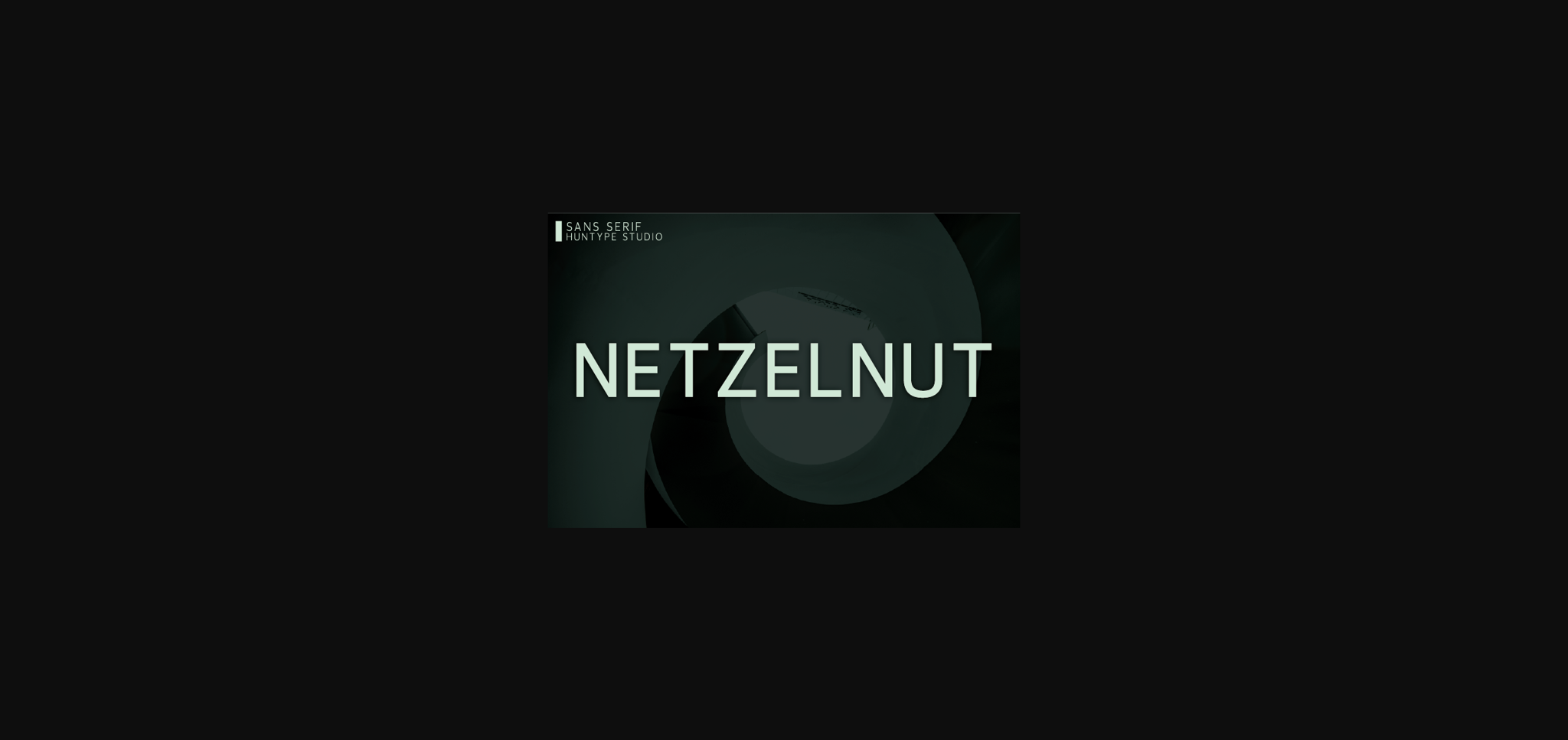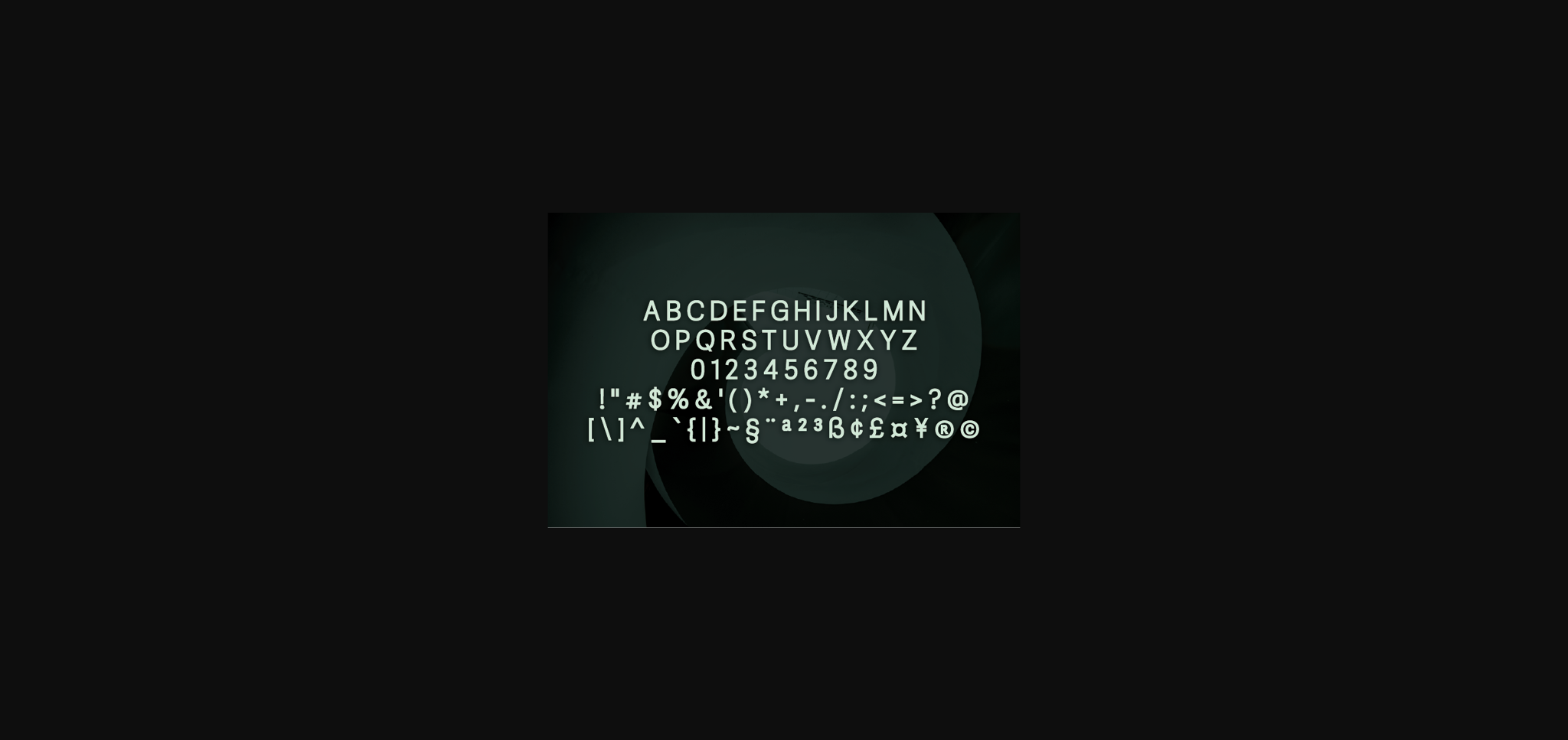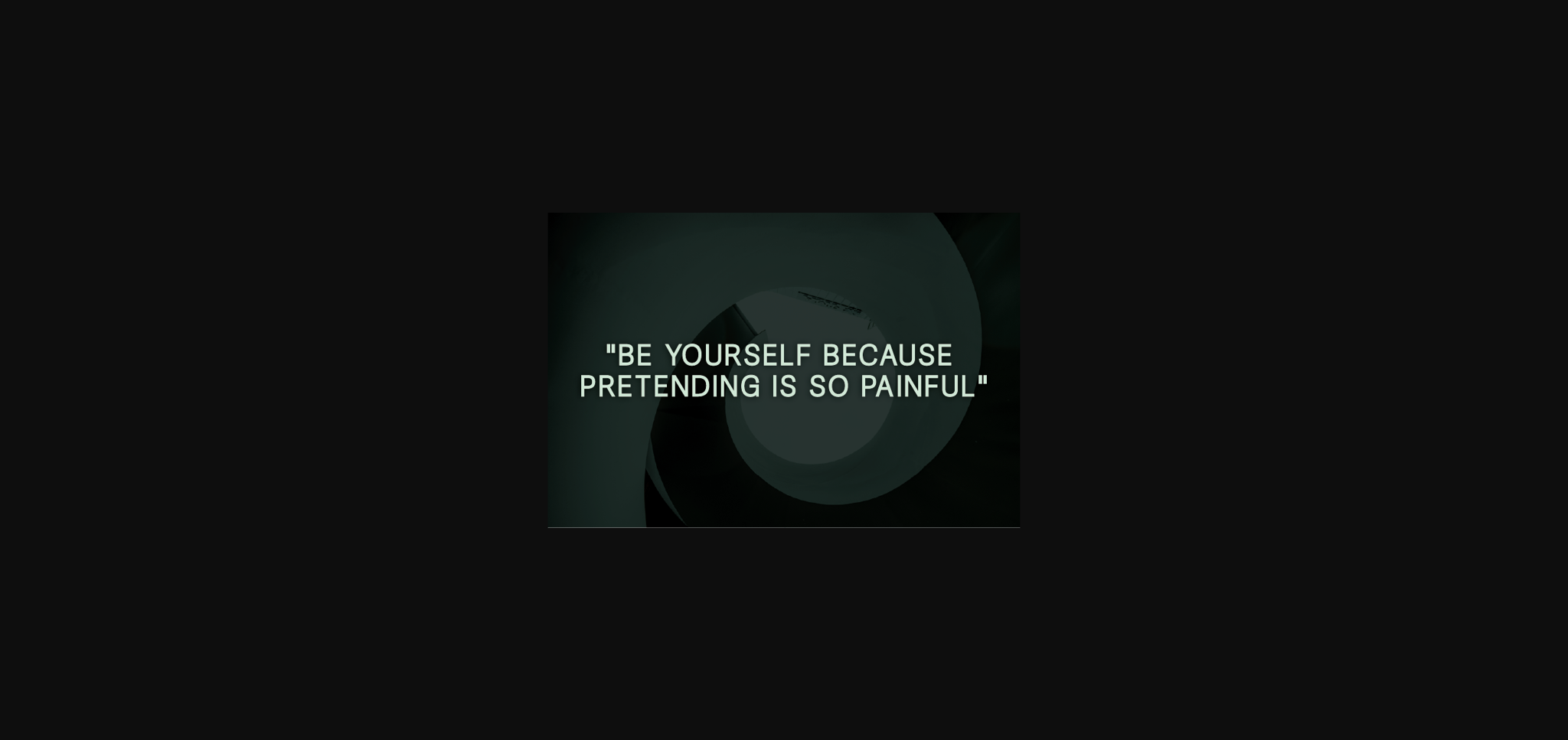
Netzelnut Font
About Netzelnut Font
Netzelnut is a clean, authentic and simple sans serif font. No matter the topic, this font will be an incredibly asset to your fonts’ library, as it has the potential to elevate any creation.